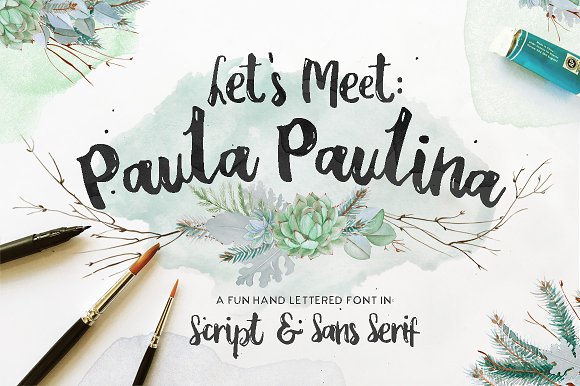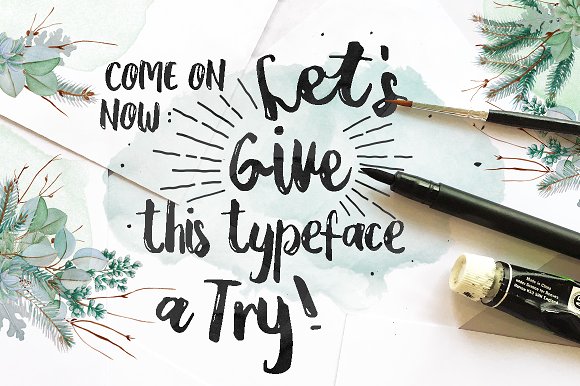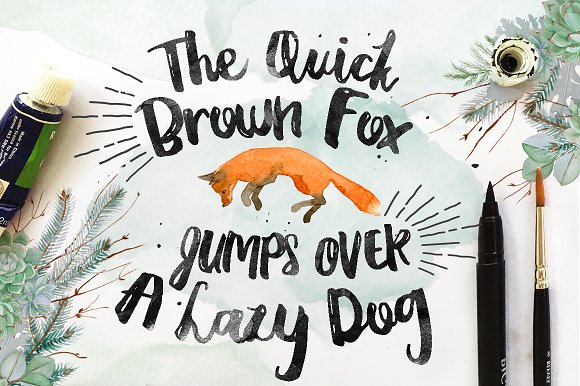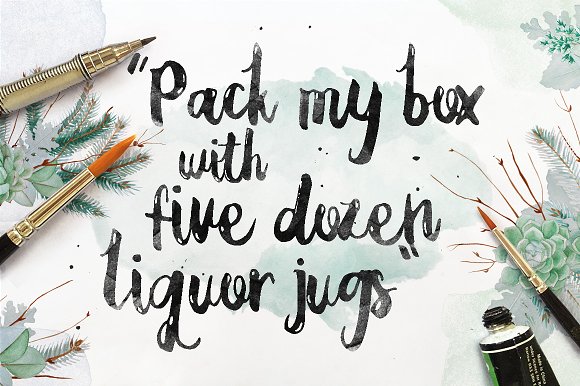
About Paula Paulina Font
Paula Paulina is a stunning font duo that comes as script & sans.
Paula Paulina mixes a modern hand lettered style with a dynamic curvy one.
The Paula Paulina font comes including a complete set of accented glyphs for international languages. It also features ligatures.